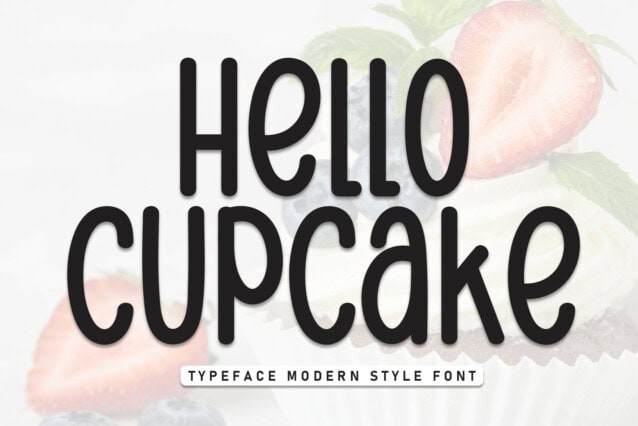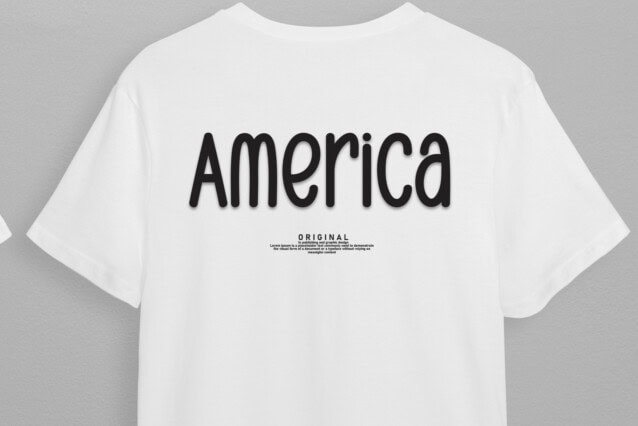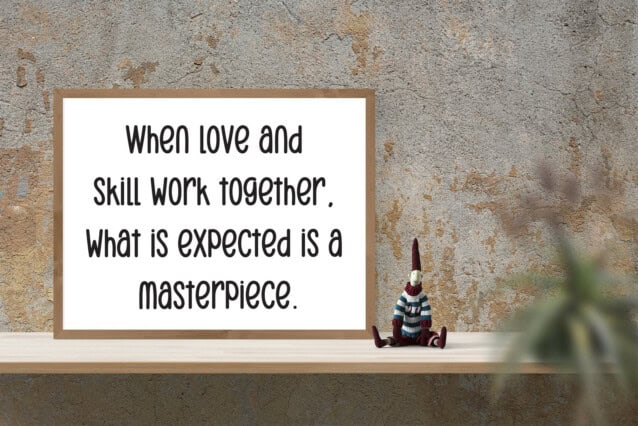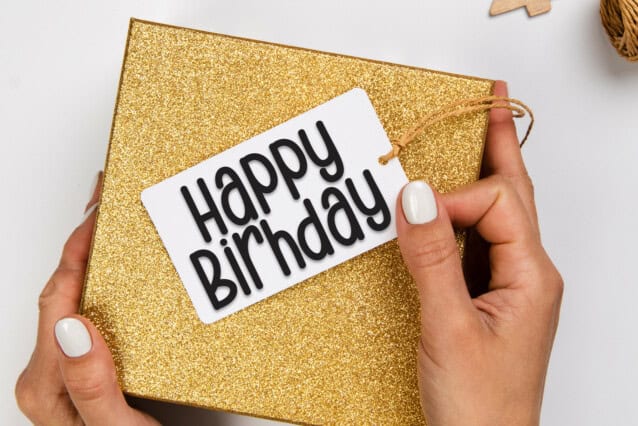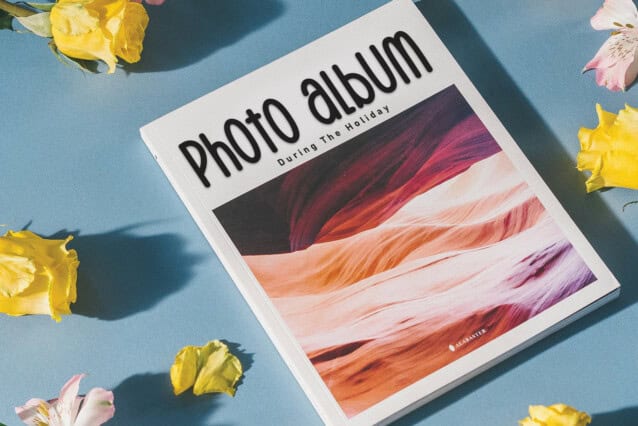
Hello Cupcake Display Font
Hello Cupcake Display Font is a sweet and friendly handwritten font. Its natural and unique style makes it incredibly fitting to a large pool of designs. The only limit is your imagination!